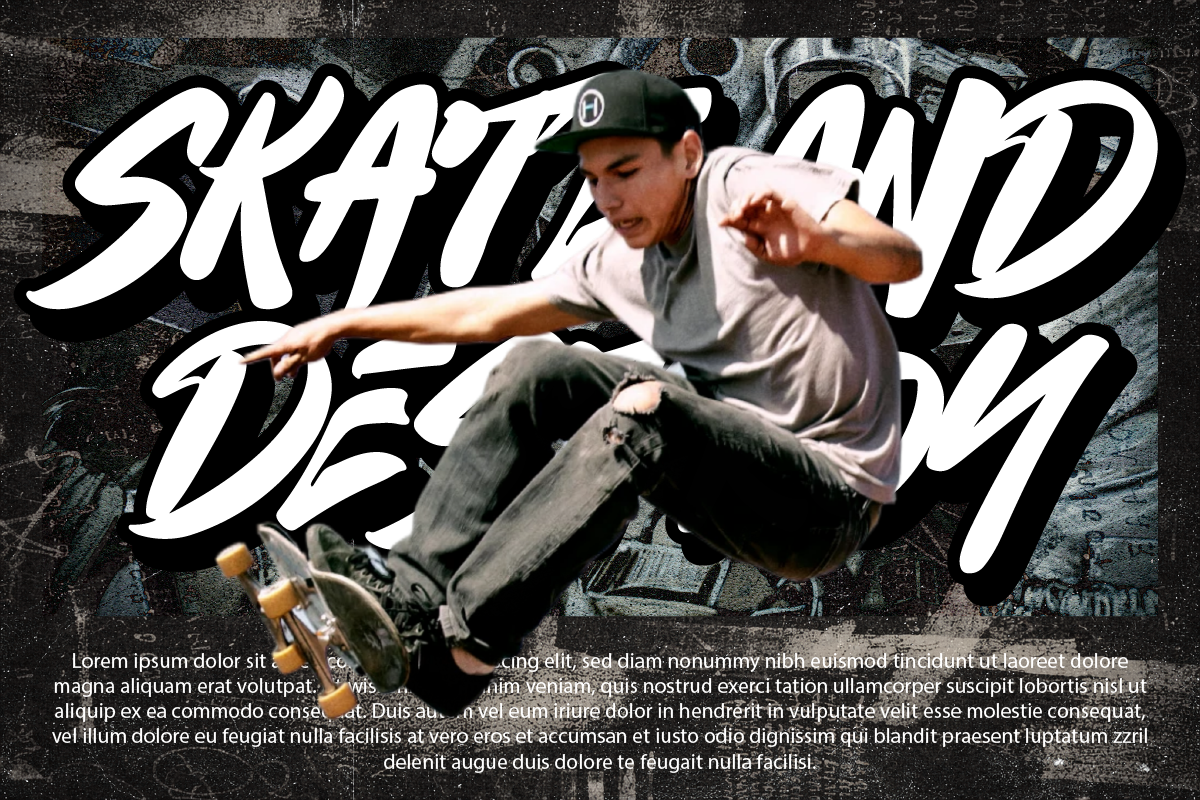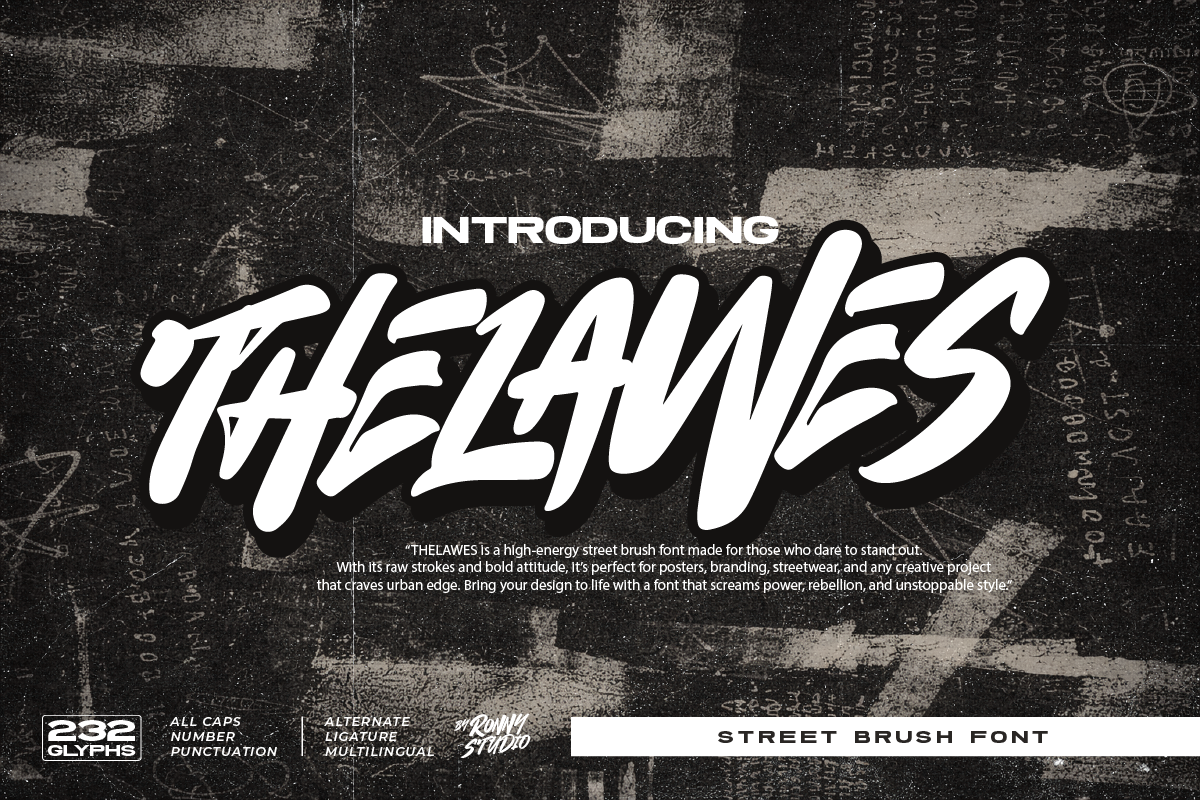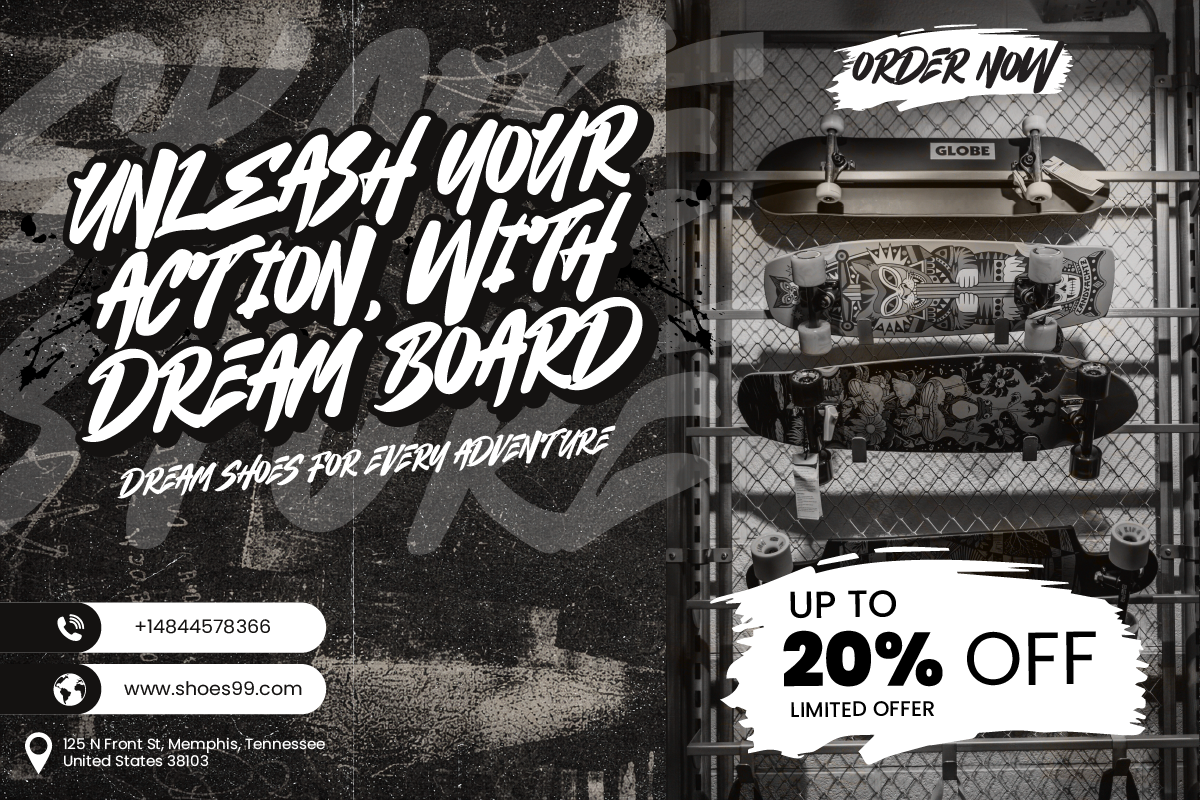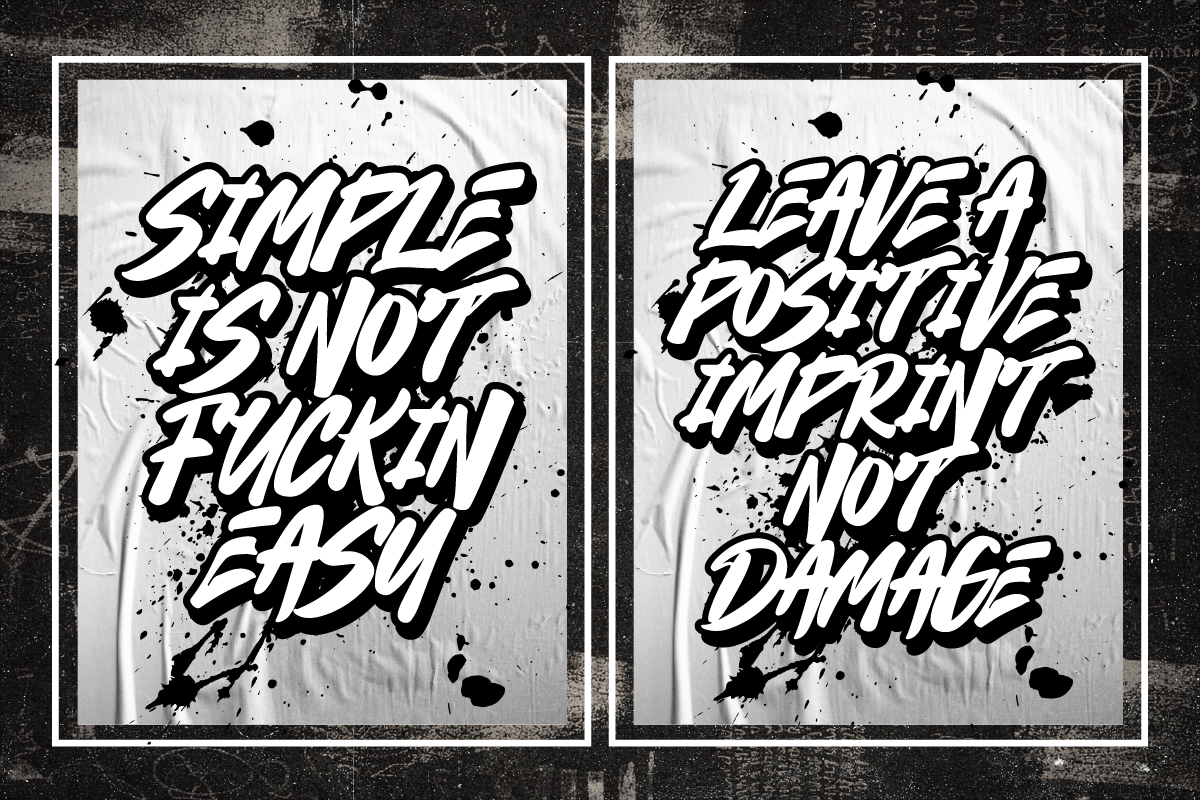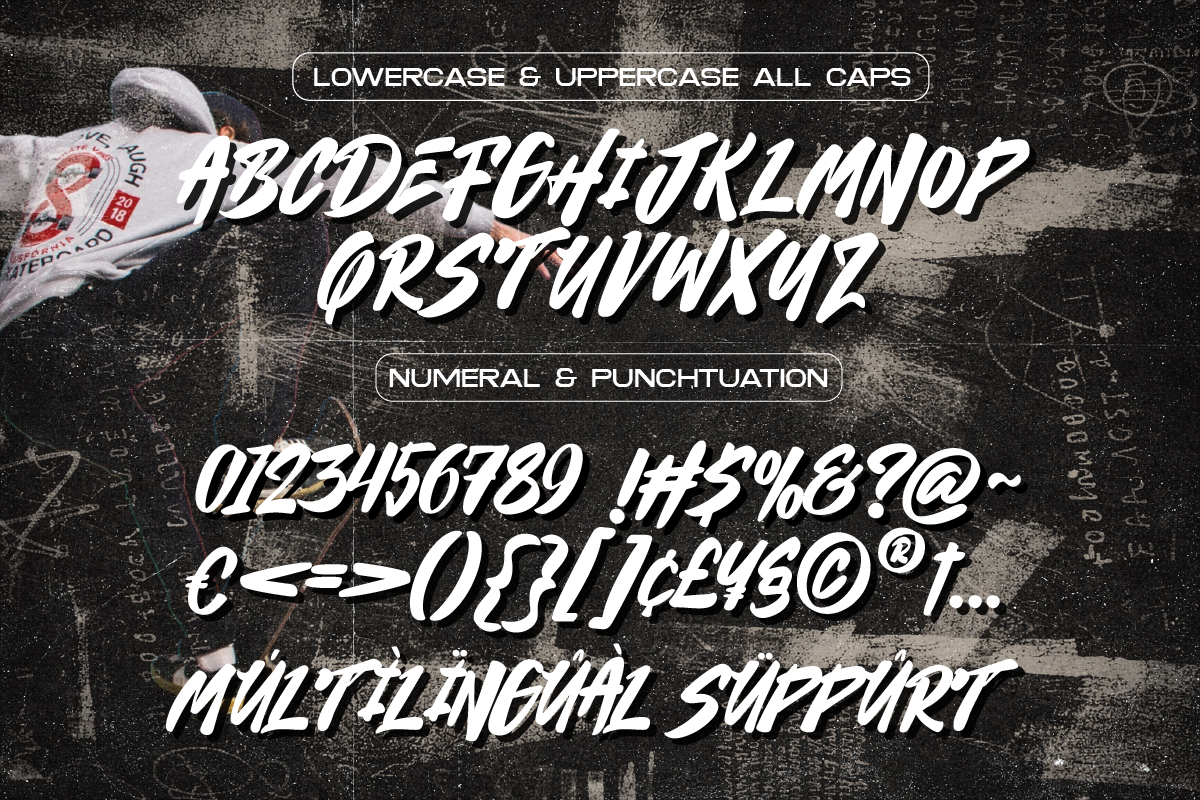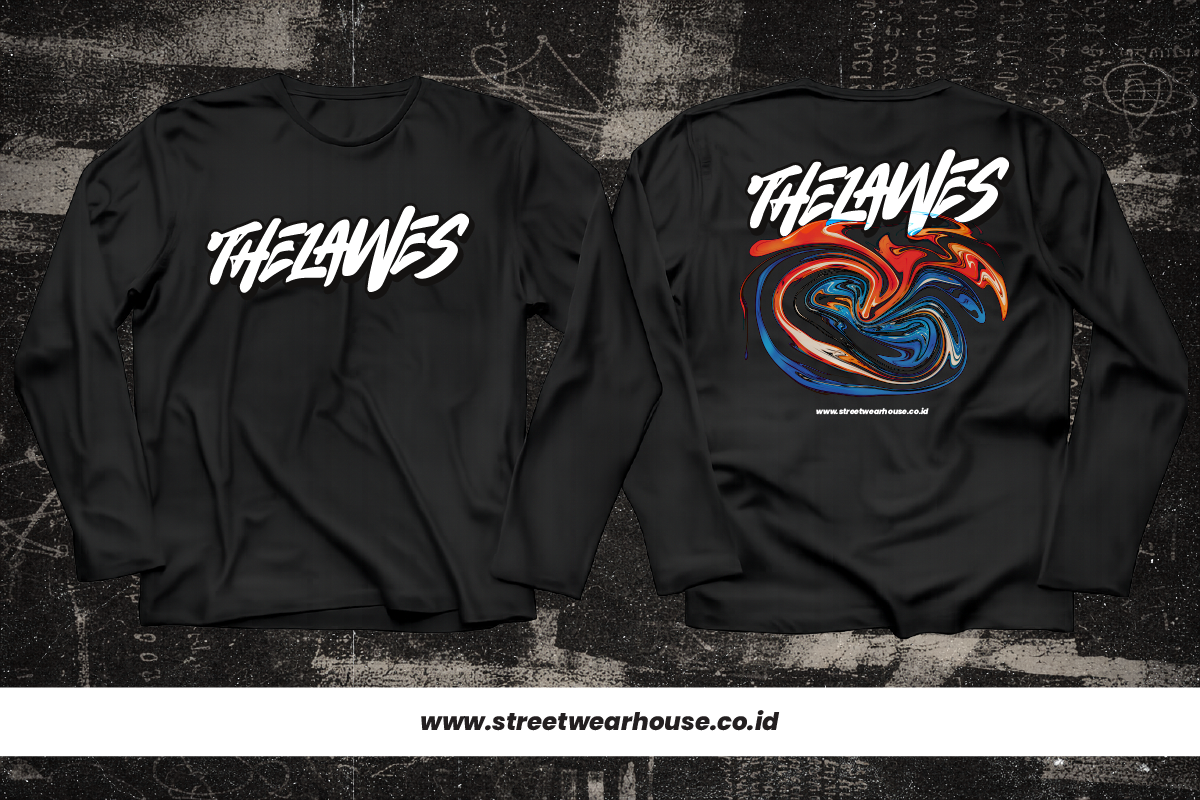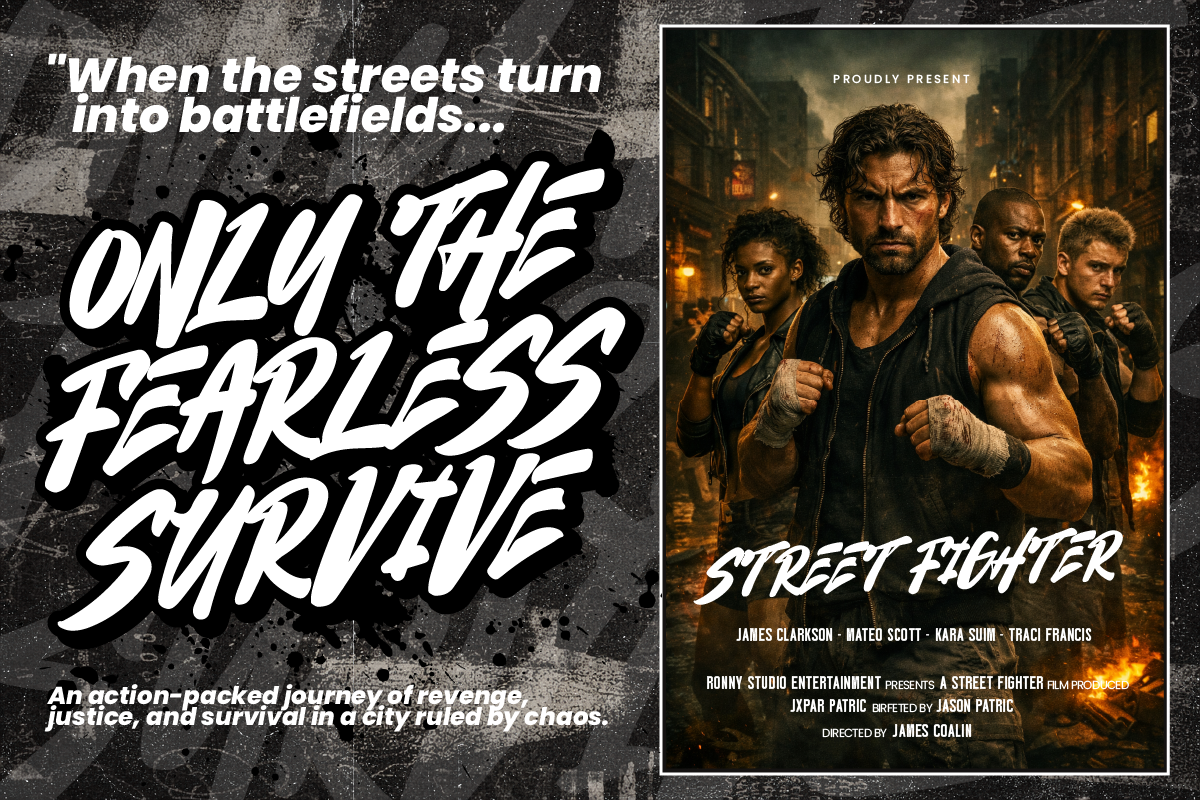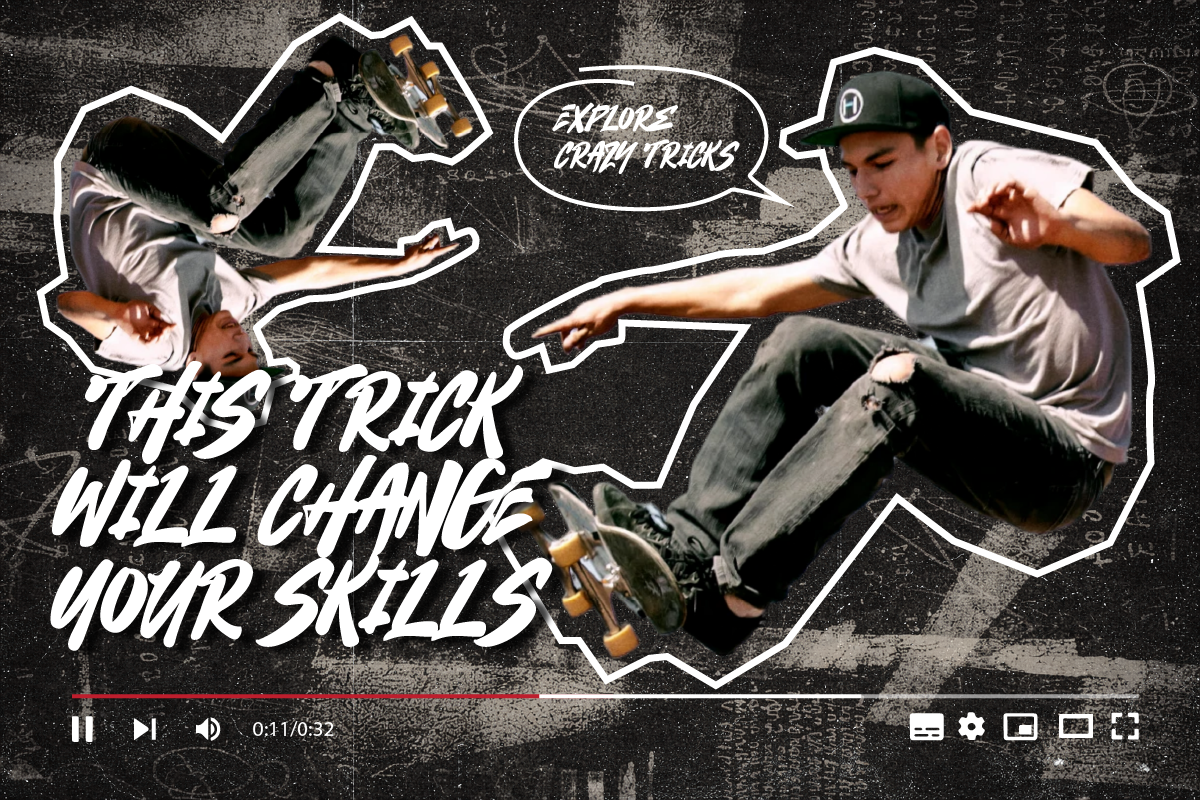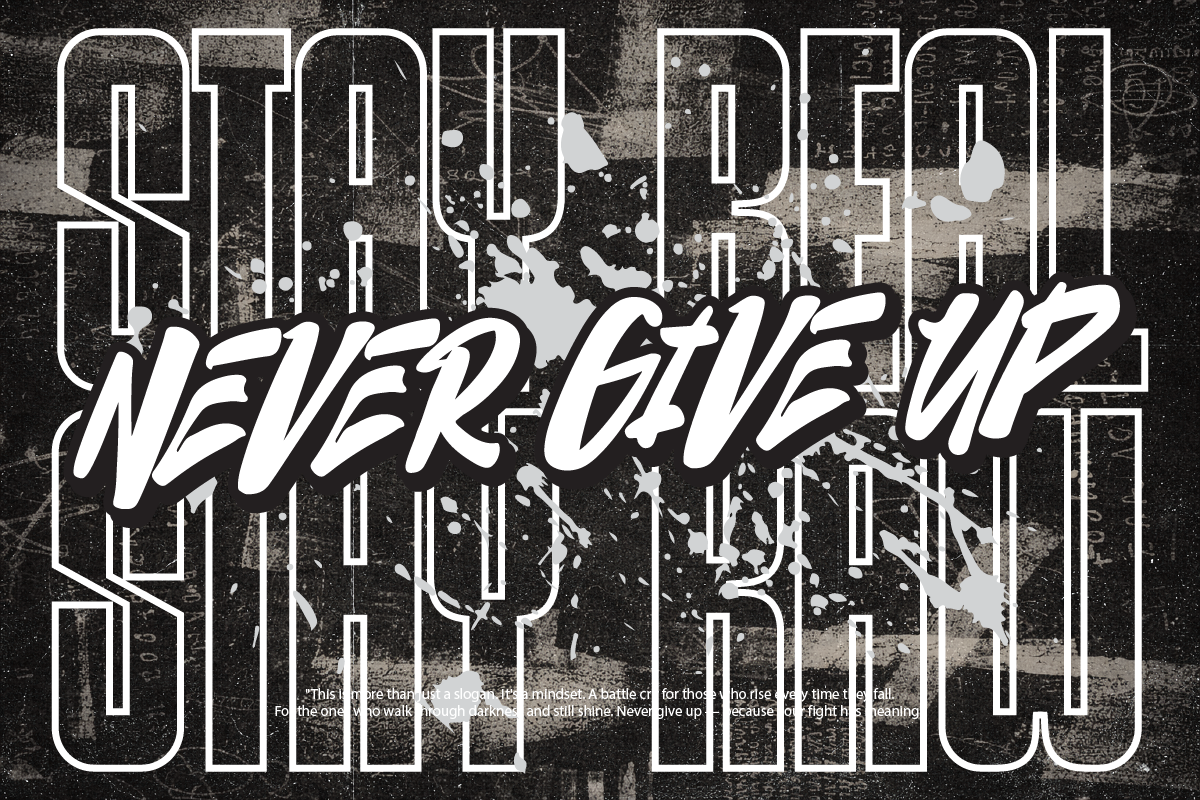
Thelawes Street Brush Graffiti Font
🎨 Introducing: Thelawes – Street Brush Font Unleash the energy of rebellion and street spirit with Thelawes, a powerful brush typeface inspired by skate culture, graffiti tags, and underground movement. Every stroke is raw, loud, and unapologetically bold—perfect for creators who design without limits.
Whether you're crafting apparel designs, album covers, posters, or action-themed branding, Thelawes brings that unfiltered attitude that hits hard and stands tall.
✨ Font Features:
- Authentic hand-drawn street brush style
- Full uppercase & lowercase, numbers, symbols & punctuation
- Multilingual support for global reach
🔥 Perfect For:
- Urban fashion & streetwear branding
- Skateboard culture promotions
- Graffiti-inspired editorial & posters
- Music album covers (hip-hop, punk, rock)
- Movie titles, merchandise, stickers & decals
- Bold social media quotes and digital artwork
Ready to bring unstoppable street energy into your next project? Thelawes is not just a font — it’s a statement. Design loud. Design fearless.